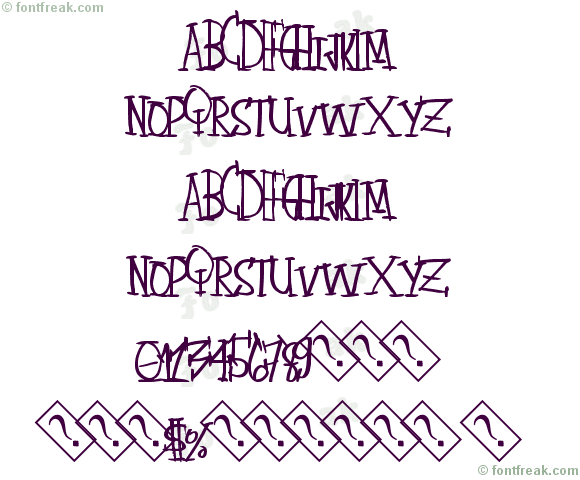
SkateAround
SkateAround, designed by Xerographer Fonts in 2012, is a captivating display font that embodies a playful and energetic spirit, making it an excellent choice for creative projects. This font falls into the decorative category, showcasing a unique style that is both whimsical and urban, perfect for capturing the essence of skate culture. The visual characteristics of SkateAround include a medium stroke weight with a slightly irregular finish, adding a hand-drawn feel. The uneven baseline and varied letter heights contribute to its charm, while the ample spacing between characters ensures readability, making it suitable for various applications.
The SkateAround font shines in several specific use cases. It is ideal for skateboarding event posters, where its lively nature can attract attention and convey excitement. Additionally, it works wonderfully for youth-oriented fashion brands, capturing a relaxed and trendy aesthetic. The font can also enhance restaurant menus, especially for eateries with a casual vibe, adding a touch of personality to the dining experience. Furthermore, SkateAround is perfect for social media graphics aimed at younger audiences, making posts more engaging and visually appealing.